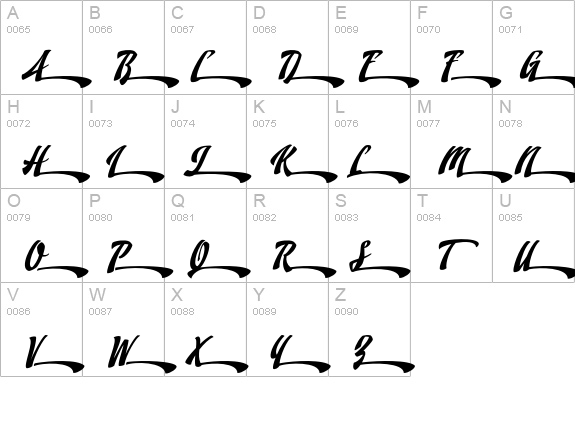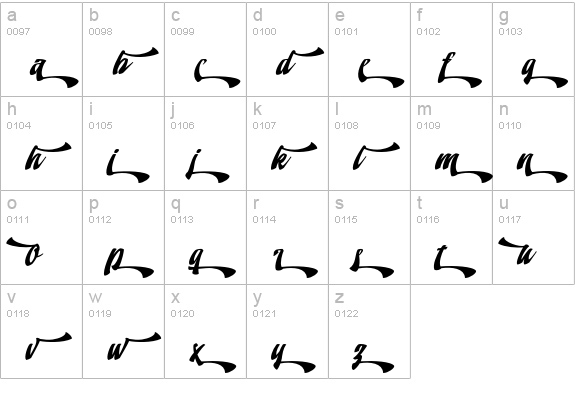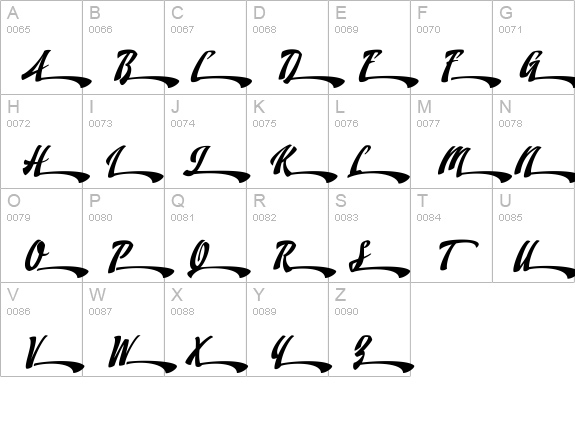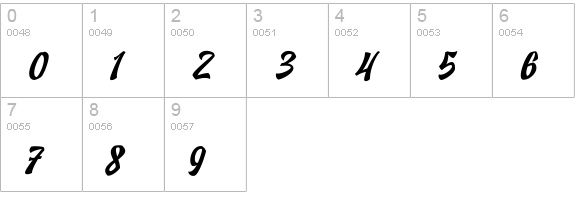
Introducing the exquisite and versatile Doedel Alternate 6 Multiple font, a stunning addition to any designer's toolkit. This unique font boasts a charming and whimsical style, perfect for adding a touch of creativity to your projects. With its distinctive alternate characters, this font offers endless possibilities for creating eye-catching designs. What's even better is that Doedel Alternate 6 Multiple font is available for free download at FontsMarket.com. Yes, you read that right - this premium font can be yours at no cost! Whether you're working on a branding project, poster design, or any other creative endeavor, this font is sure to make a bold statement. Don't miss out on the opportunity to elevate your designs with the Doedel Alternate 6 Multiple font, now freely available for download.